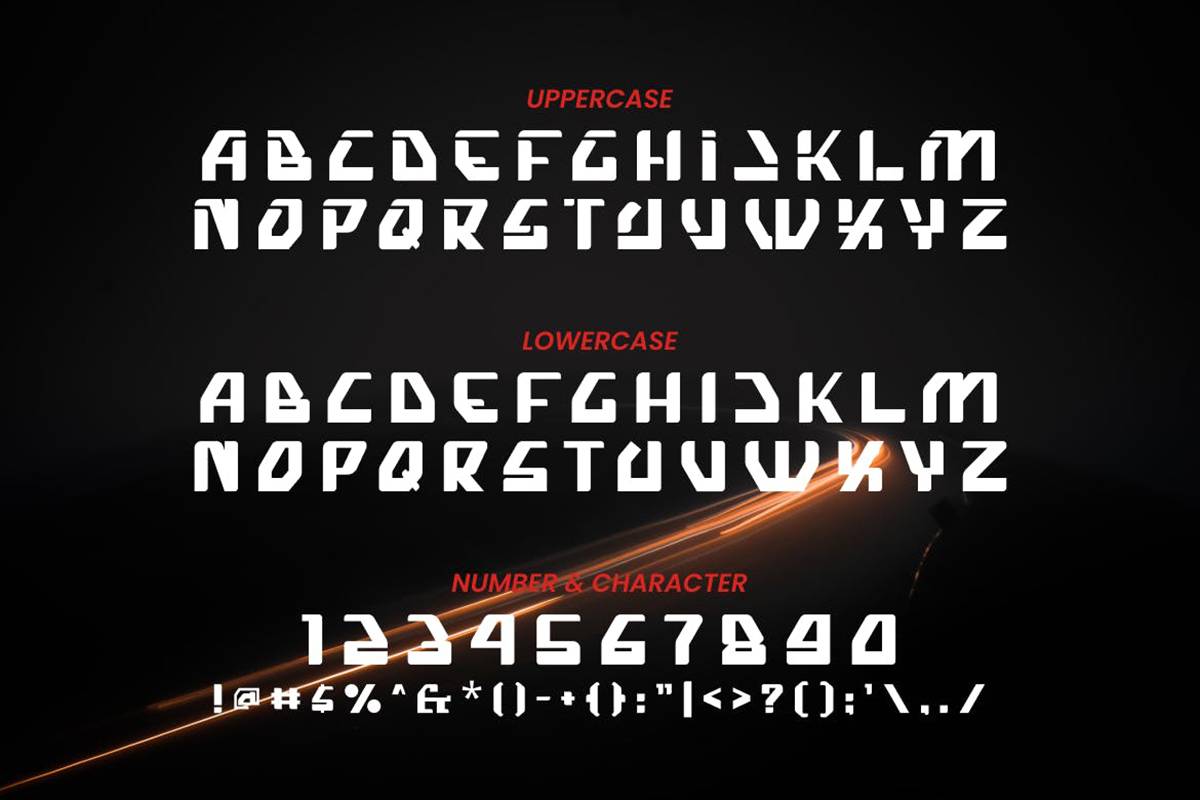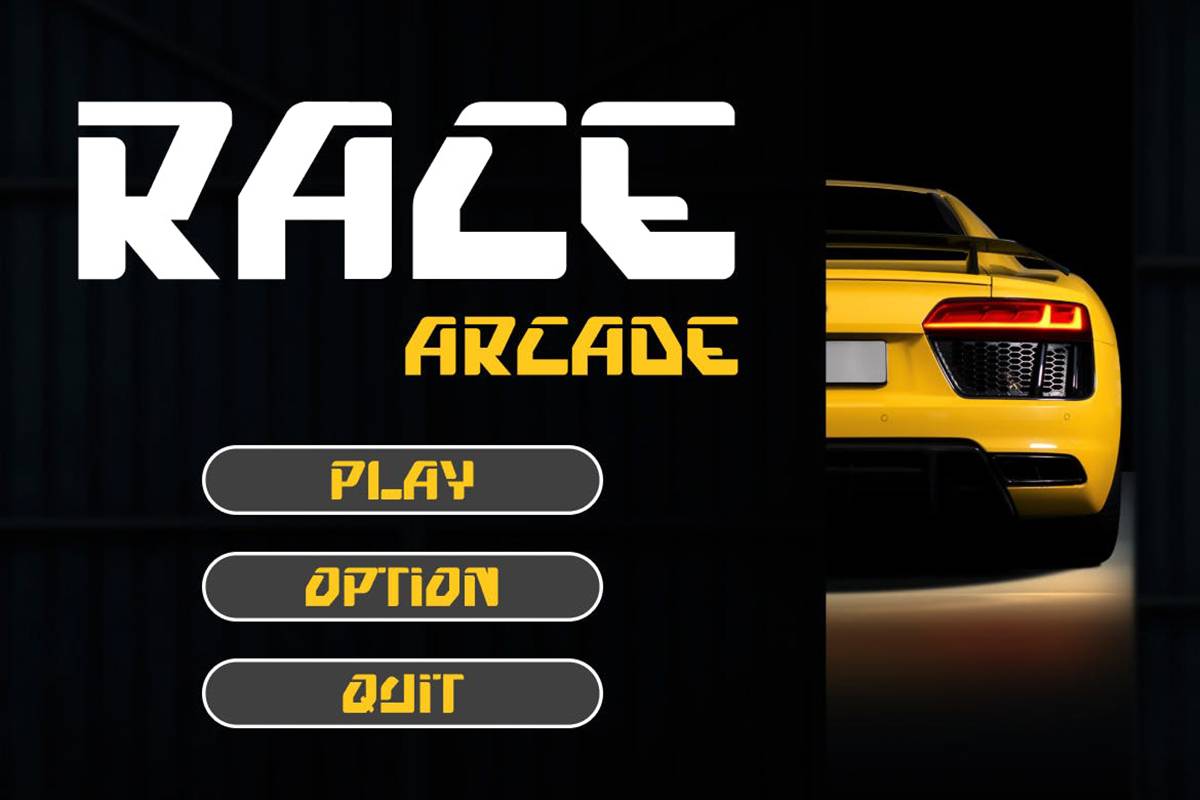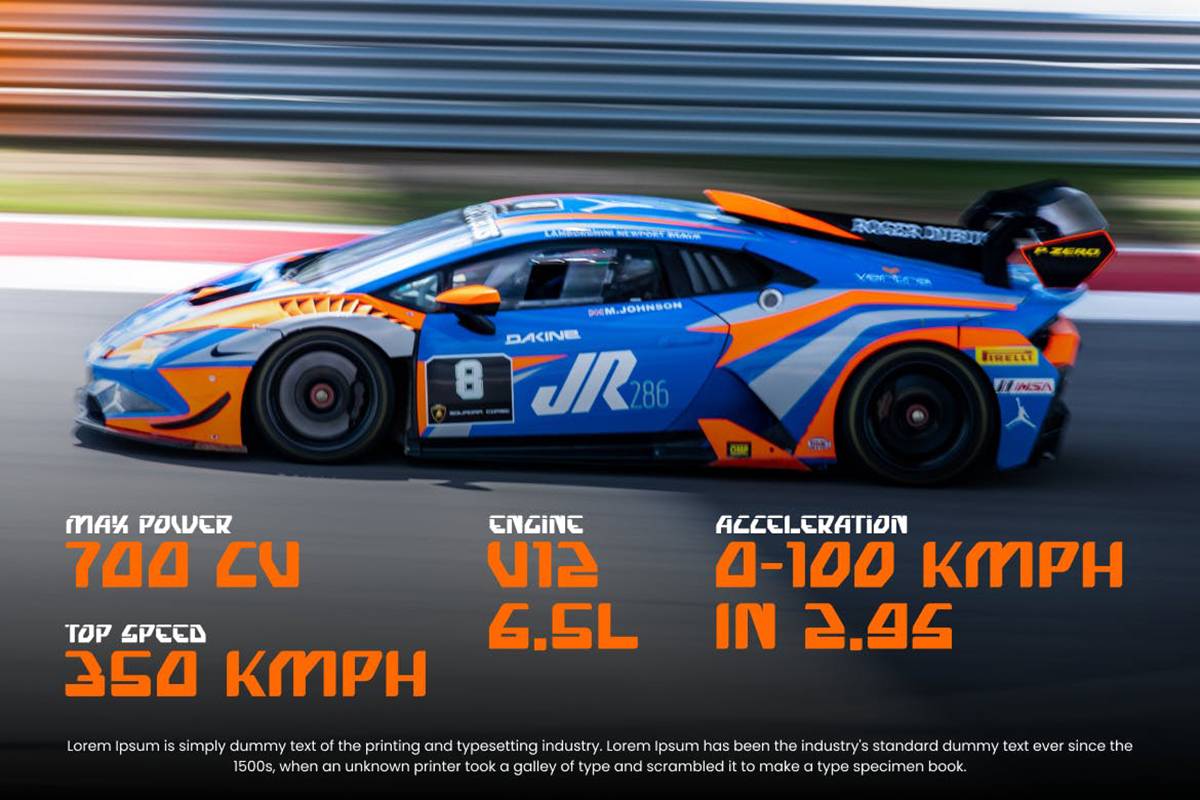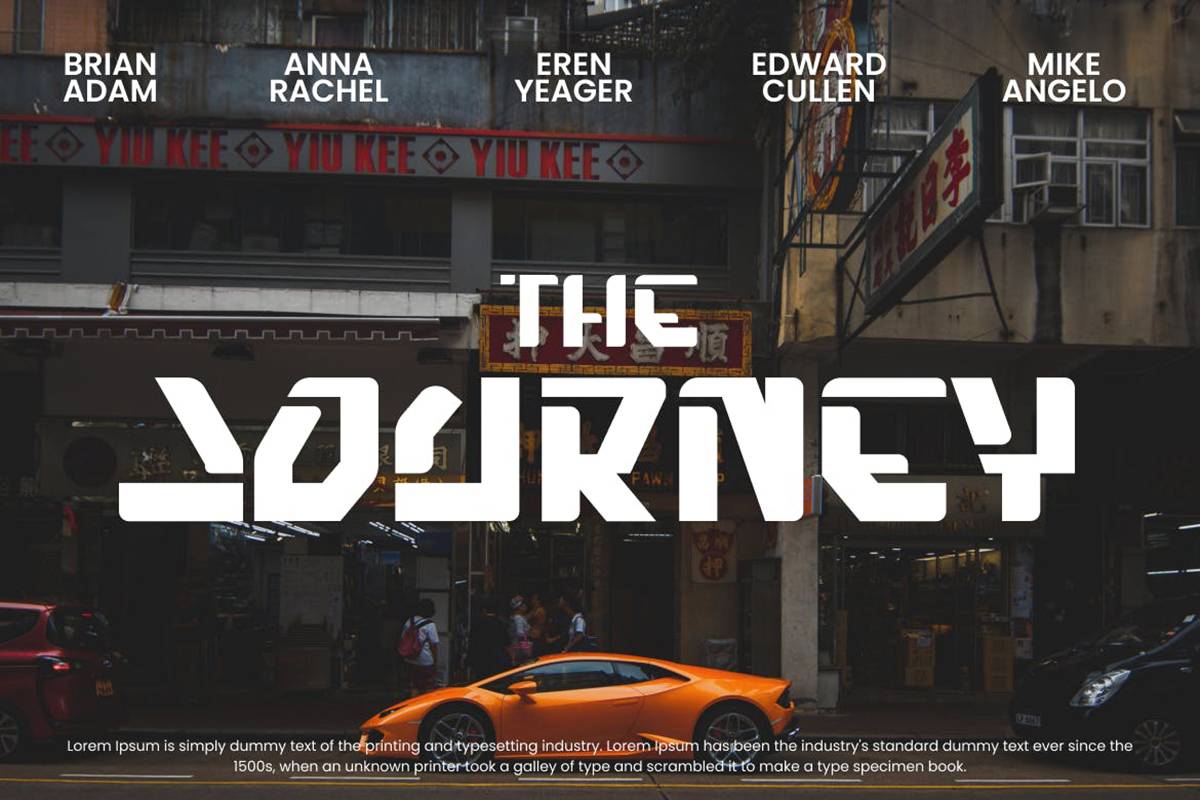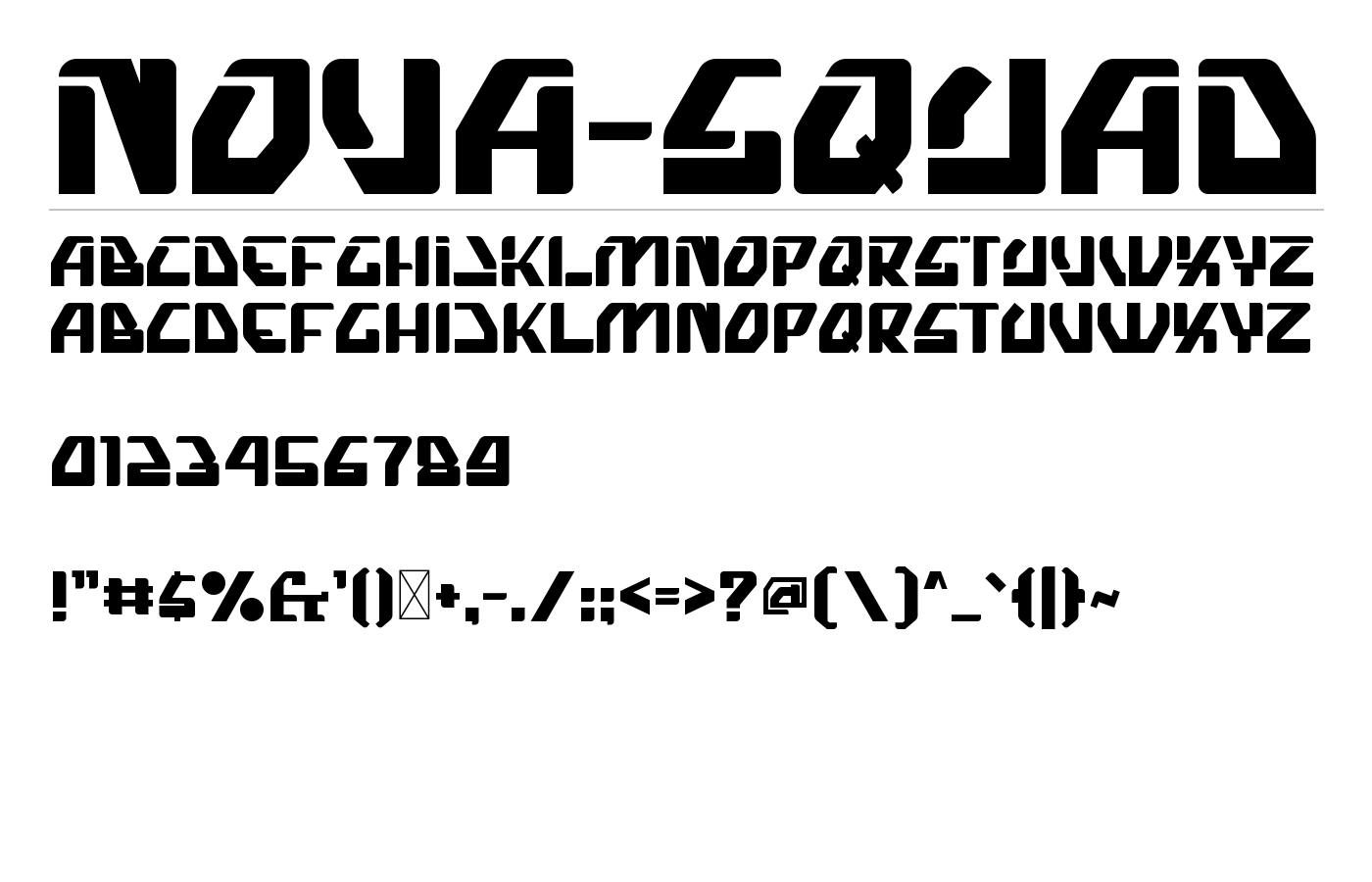
Nova Squad is a bold, geometric sans serif font with a futuristic and technical vibe. Its blocky shapes and sharp angles give it a strong, dynamic presence, making it ideal for sci-fi themes, tech branding, or bold headlines where a modern, edgy look is desired. This font works well in logos, posters, and digital media where striking, unconventional typography can capture attention.
Nova Squad Font
About Nova Squad Font
| Font family | Nova Squad Font |
| Designer | Tokopress Team |